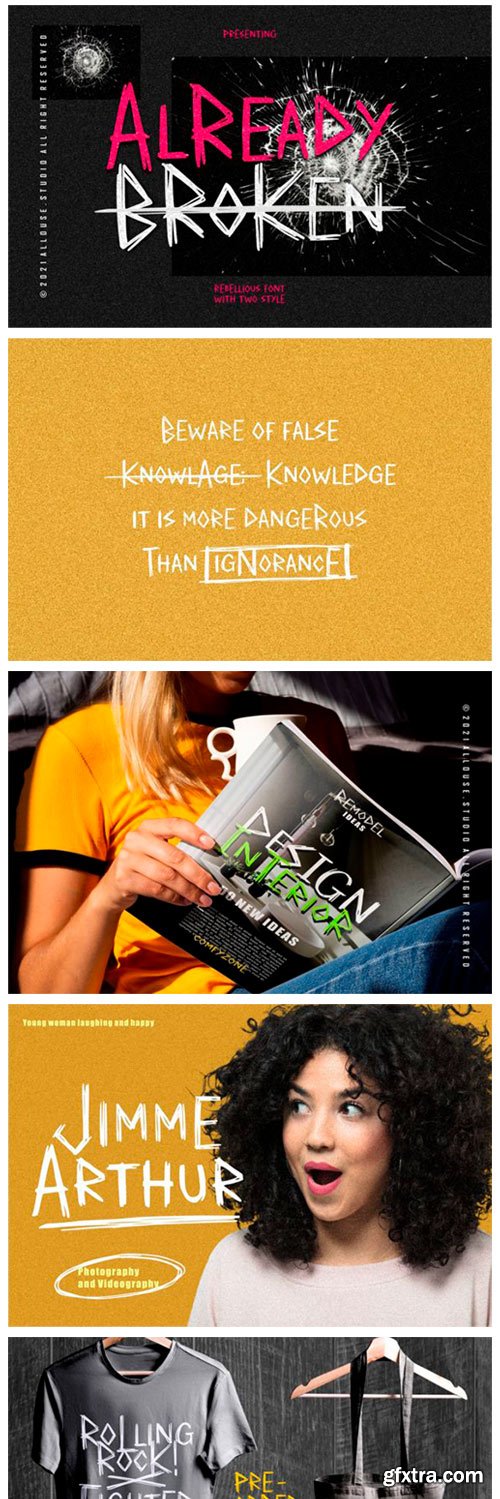
Already Broken Font
Already Broken is a rebellious and dramatic display font. Use this font for your designs and explore its endless possibilities.
Delvina Font
Delvina is a flowing handwritten font, described by an elegant touch, perfect for your favorite projects. Fall in love with its incredibly distinct and timeless style and use it to create spectacular designs! This font is PUA encoded which means you can access all of the glyphs and swashes with ease!
Exotique Font
Exotique is an unique display font equipped with multilingual characters to be able to handle most typographic applications ranging from branding to body copying with various weights and inherent readability. This font will look luxurious for many projects such as fashion designs, magazines, logos, branding, photography, invitations, quotes, blog headings, posters, advertisements, postcards, etc.
Raccoon Font
Raccoon is a simple and cute display font. It is perfect for projects like quotes, greeting cards, invitation cards, children books, social media and others. Add this lovely font to each of your creative ideas and notice how it makes them stand out! This font is PUA encoded which means you can access all of the glyphs and swashes with ease!
Bestand Font
Bestand is a unique and simple handwritten font, very eye-catching, it is very suitable for all kinds of crafts, mockups, logos, business cards, invitation cards, and more.
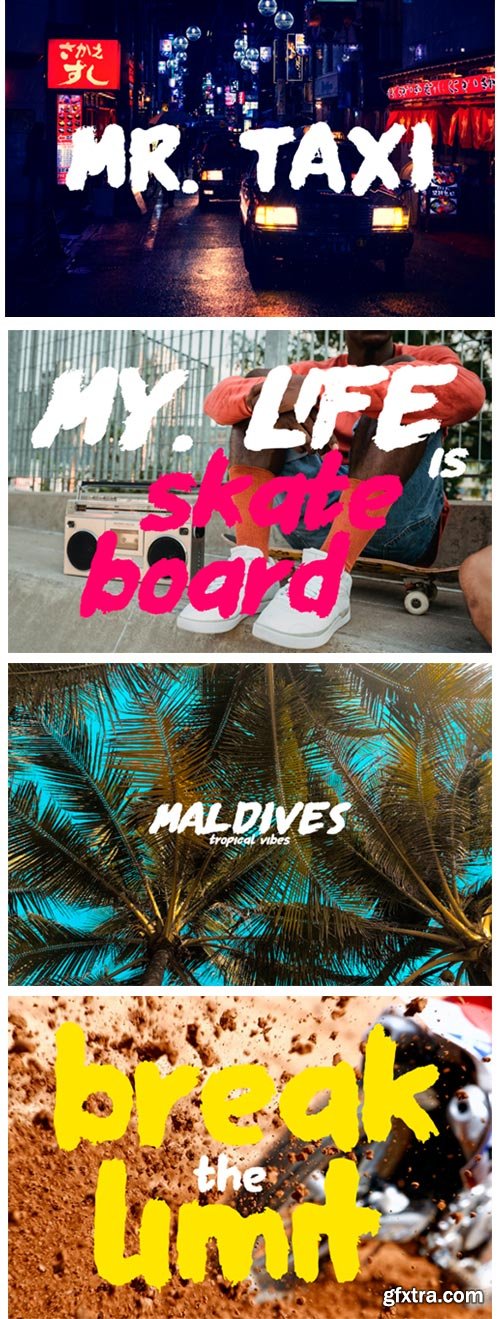
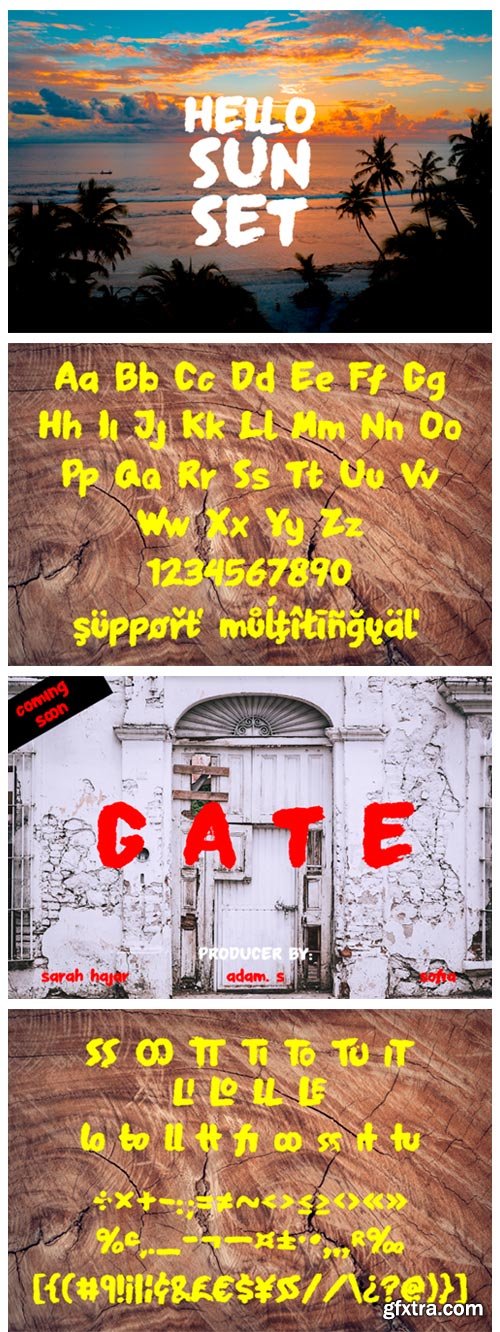
Mr Taxi Font
Mr Taxi is a bouncy and quirky display font. It will add a fresh and contemporary touch to your designs. Add this unique display font to each of your creative ideas and notice how it makes them stand out!
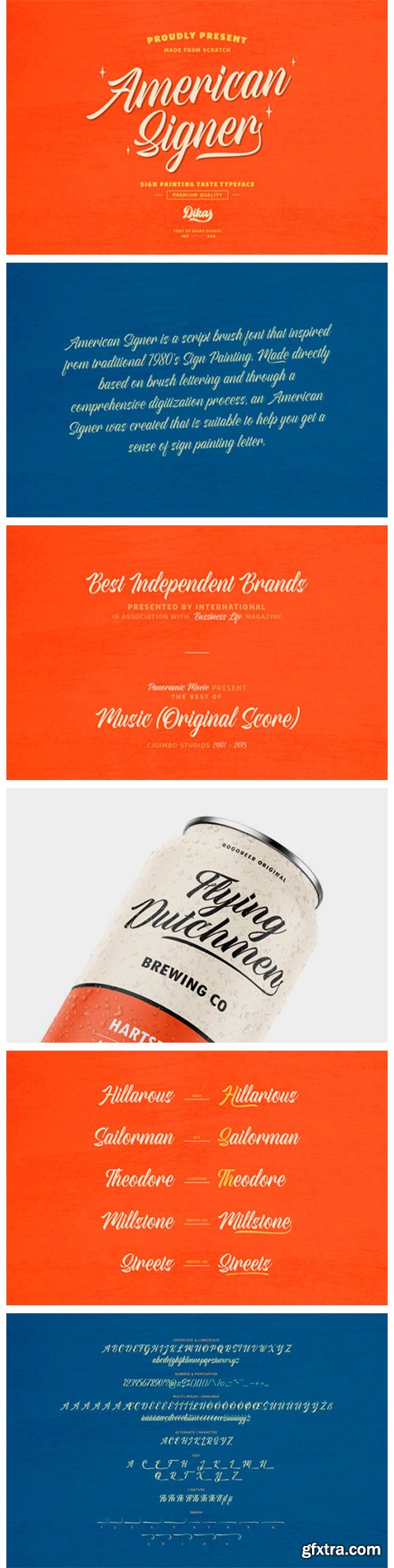
American Signer Font
American Signer is a modern handwritten font that is readable, bold and stylish. It is defined by smooth curves and is perfect for fashion branding or editorial designs. Add it confidently to your projects, and you will love the results.
Shintya Font
Shintya is a delicate, elegant and flowing handwritten font. It has beautiful and well balanced characters and as a result, it matches a wide pool of designs. Shintya features a varying baseline, smooth lines, gorgeous glyphs and stunning alternates. Add it to your most creative ideas and notice how it makes them come alive!
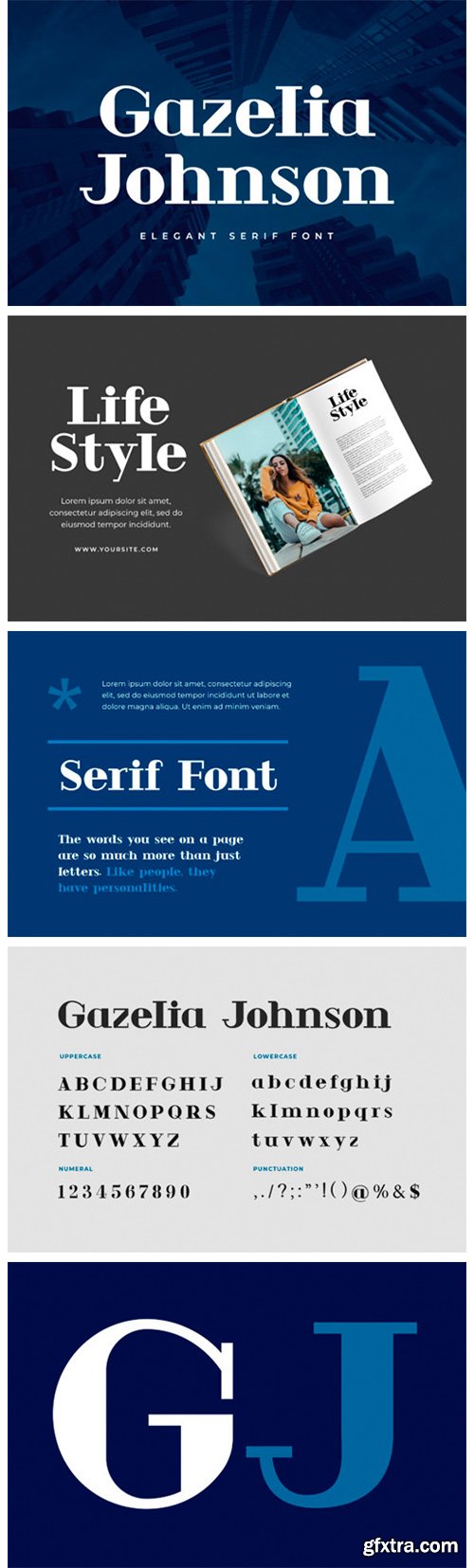
Gazelia Johnson Font
Gazelia Johnson is an elegant and assertive serif font. Masterfully designed to become a true favorite, this font has the potential to bring each of your creative ideas to the highest level!
Strong Pro Font
Strong Pro is a modern and adventurous display font. Brushed and rough textured, this font will make each of your casual or urban designs look amazing.
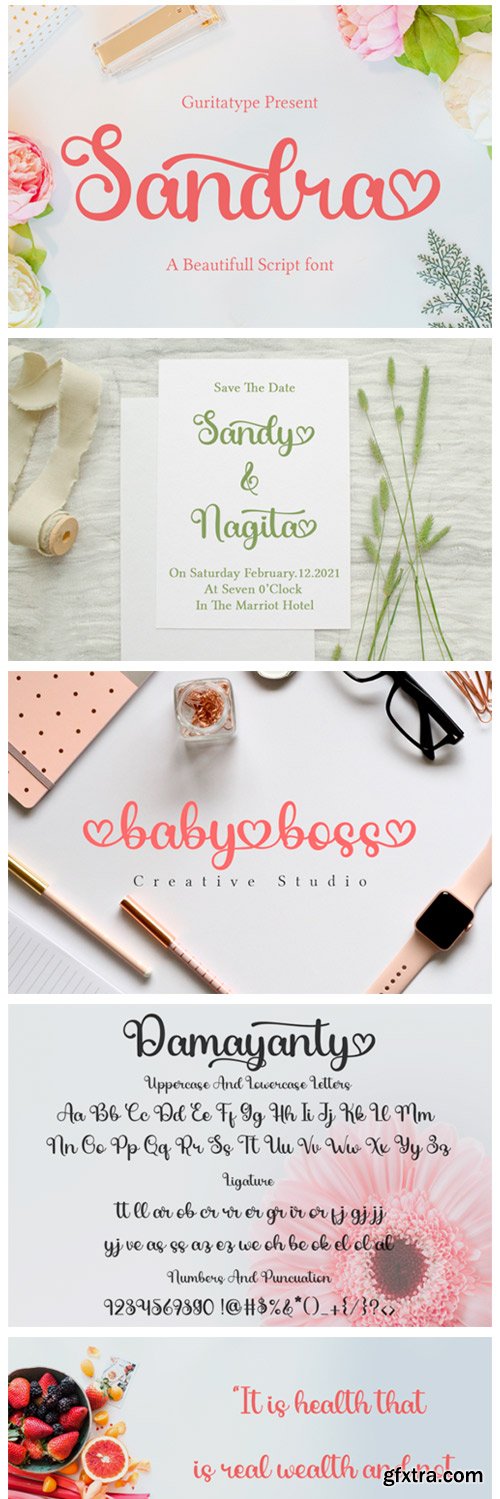
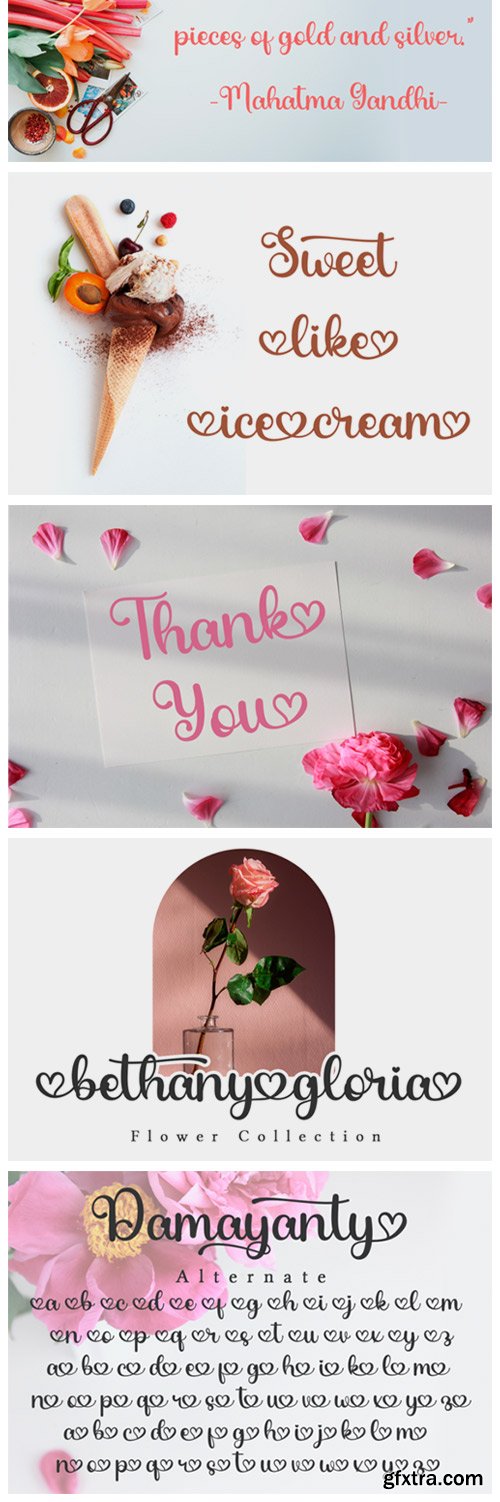
Sandra Font
Sandra is a smooth, elegant and flowing handwritten font. It features lovely characters and has a heart tail which makes it unique and refined. This font is PUA encoded which means you can access all of the glyphs and swashes with ease!
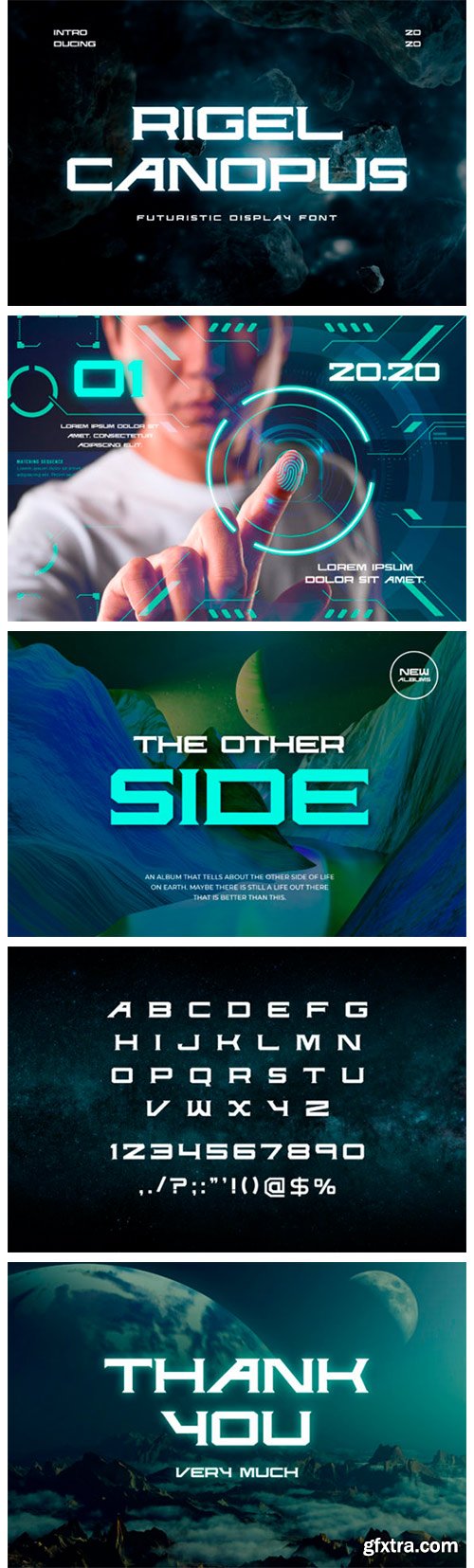
Rigel Canopus Font
Rigel Canopus is a cool looking, futuristic vintage display font. Bold and thick lettered, this font will instantly make each of your designs stand out.
Meraline Font
Meraline is a stylish and delicate script font. It has a clean, thin and smooth vibe and it will be a hit for any design that you want to add it to.
Quennsland Font
Quennsland is a delicate, elegant and flowing handwritten font. It has beautiful and well balanced characters and as a result, it matches a wide pool of designs. Add it to your most creative ideas and notice how it makes them come alive!
Rillies Font
Rillies is a relaxed yet stunning handwritten font. It looks beautiful on a variety of designs requiring a personalized style, such as wedding invitations, thank you cards, weddings, greeting cards, logos and so on.
Nagara Font
Nagara is an elegant and classic duo font (serif and script). No matter the topic, this font will be an incredibly asset to your fonts’ library, as it has the potential to elevate any creation.
Maghony Font
Maghony is a modern and elegant sans serif font. No matter the topic, this font will be an incredibly asset to your fonts’ library, as it has the potential to elevate any creation.